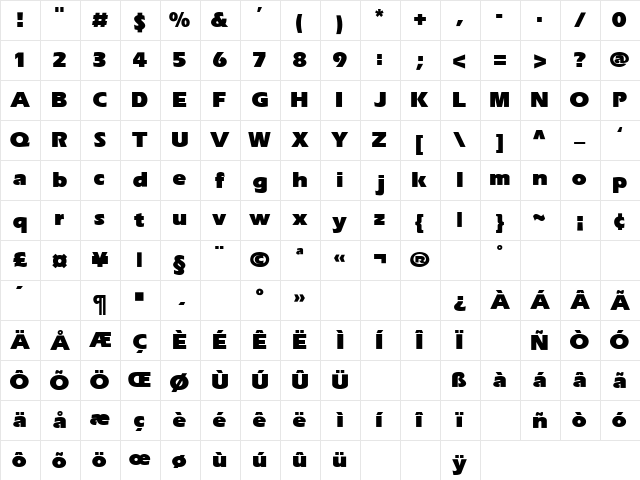
Eras-UltraBlk Heavy
Design Context for Eras-UltraBlk Typeface
Eras-UltraBlk takes a measured approach to typography — its balanced proportions and neutral character make it a reliable workhorse for both digital and print work.